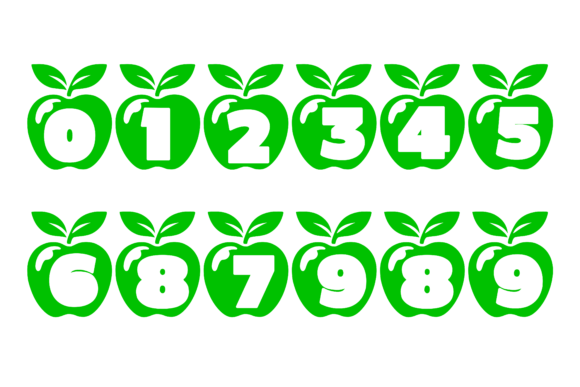
Unleash Your Creativity with Apple Monogram Font: A Whimsical Display Font
Are you looking for a font that can add a touch of childlike wonder to your projects? Look no further than the Apple Monogram Font, a captivatingly whimsical display font that is sure to transform your work into authentic works of art. In this article, we’ll take a closer look at the Apple Monogram Font, its features, and how you can use it to unleash a wave of creativity in your projects.
What is Apple Monogram Font?
Apple Monogram Font is a display font that is designed to evoke a sense of childlike wonder and playfulness. It features a unique and captivating design that is sure to grab attention and add a touch of whimsy to any project. The font is perfect for use in a variety of projects, including branding, advertising, packaging, and more.
Features of Apple Monogram Font
So, what makes Apple Monogram Font so special? Here are just a few of its key features:
- Whimsical Design: Apple Monogram Font features a unique and captivating design that is sure to add a touch of childlike wonder to any project.
- Boundless Variations: The font comes with a wide range of variations, allowing you to experiment with different styles and effects to find the perfect look for your project.
- High-Quality Design: The font is designed to high standards, ensuring that it looks great in any project.
Benefits of Using Apple Monogram Font
So, why should you use Apple Monogram Font in your projects? Here are just a few of the benefits:
- Adds a Touch of Whimsy: Apple Monogram Font adds a touch of childlike wonder and playfulness to any project.
- Increases Creativity: The font is designed to inspire creativity and imagination, making it perfect for projects that require a fresh and innovative approach.
- Versatile: Apple Monogram Font can be used in a wide range of projects, from branding and advertising to packaging and more.
- High-Quality Design: The font is designed to high standards, ensuring that it looks great in any project.
- Use it in Combination with Other Fonts: Apple Monogram Font can be used in combination with other fonts to create a unique and eye-catching design.
In conclusion, Apple Monogram Font is a captivatingly whimsical display font that is sure to transform your projects into authentic works of art. With its unique and captivating design, boundless variations, and ease of use, it’s the perfect font for anyone looking to add a touch of childlike wonder to their work. So why not give it a try and see the magic for yourself?
- Q: What is Apple Monogram Font?
A: Apple Monogram Font is a display font designed to evoke a sense of childlike wonder and playfulness.